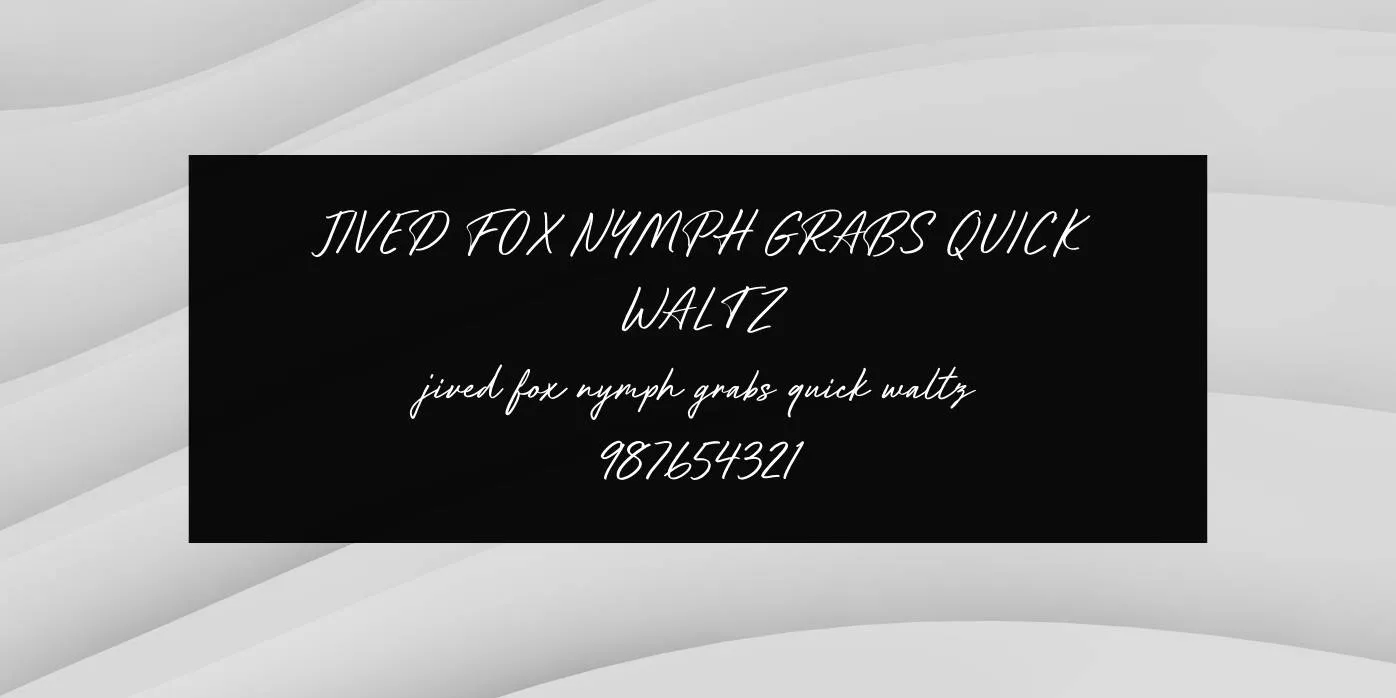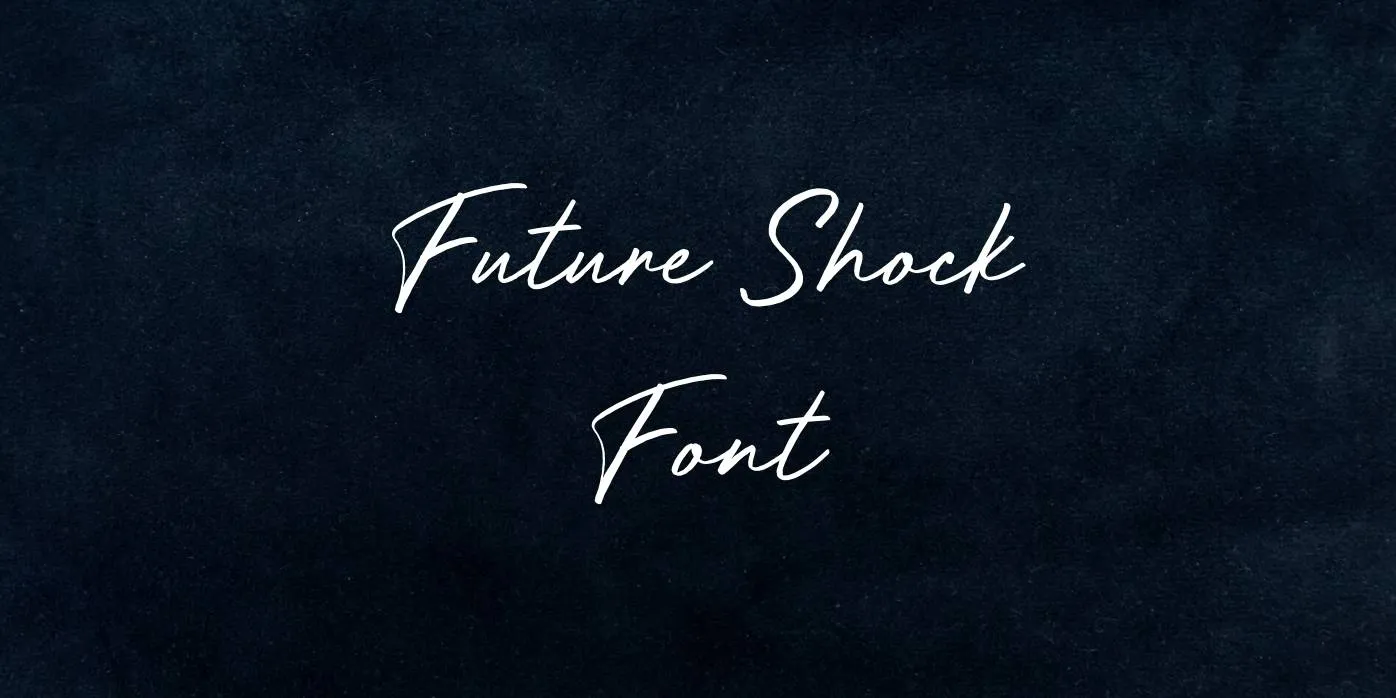
Future Shock Font
Future Shock Font is a script typeface designed by Neville Brody in 1984. The font takes its inspiration from the geometric shapes of the Bauhaus and De Stijl movements. This Font was originally designed for use in headlines and other display purposes. This font is also good for both copy-paste and pairing functions.
However, it has since been used in a variety of contexts, including body text. The font is currently available in a number of different weights and styles, including italic, small caps, and condensed. The typeface family supports lots of foreign languages and seems better when you pair it with another decorative typeface like roboto slab Font an elegant style font with a simple attractive visual.